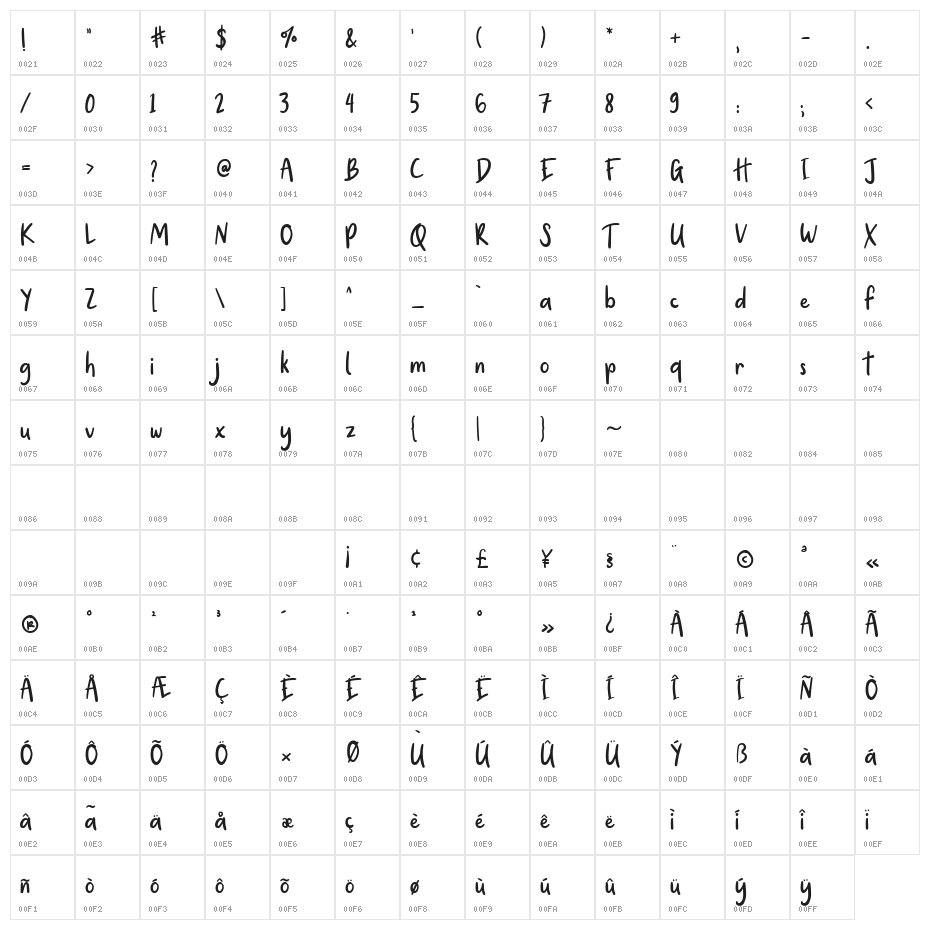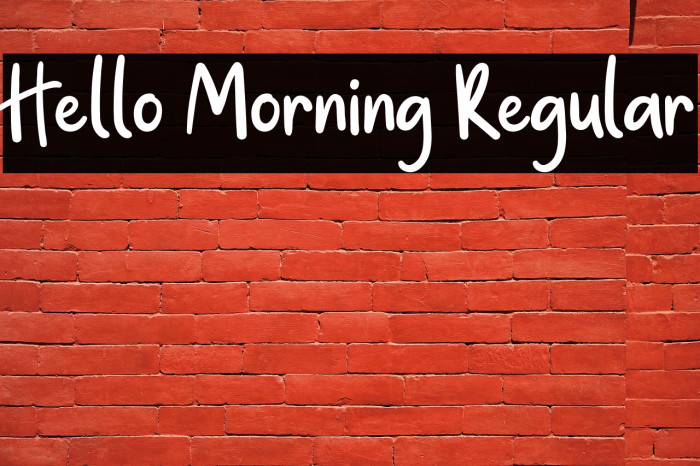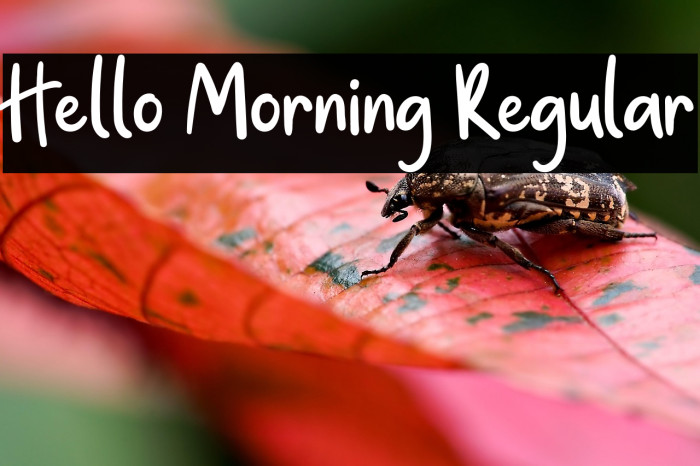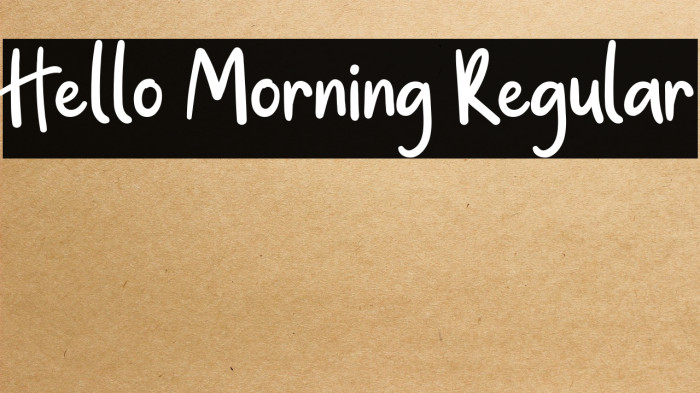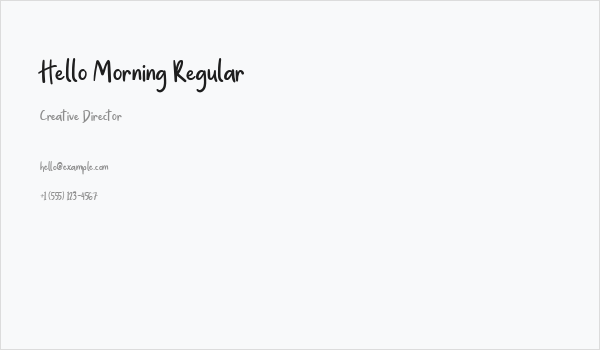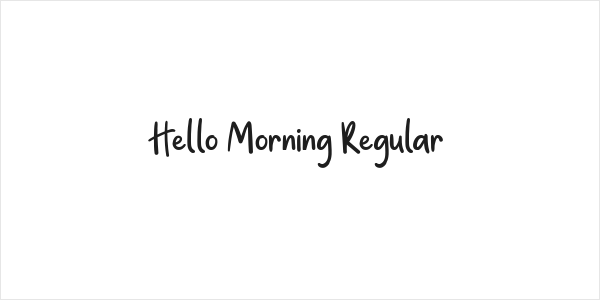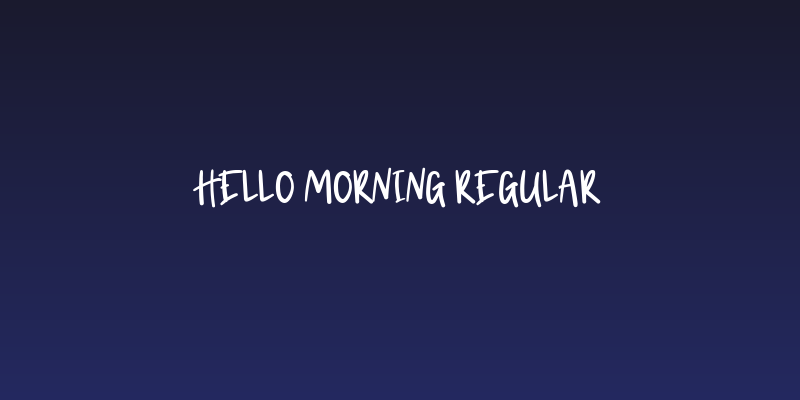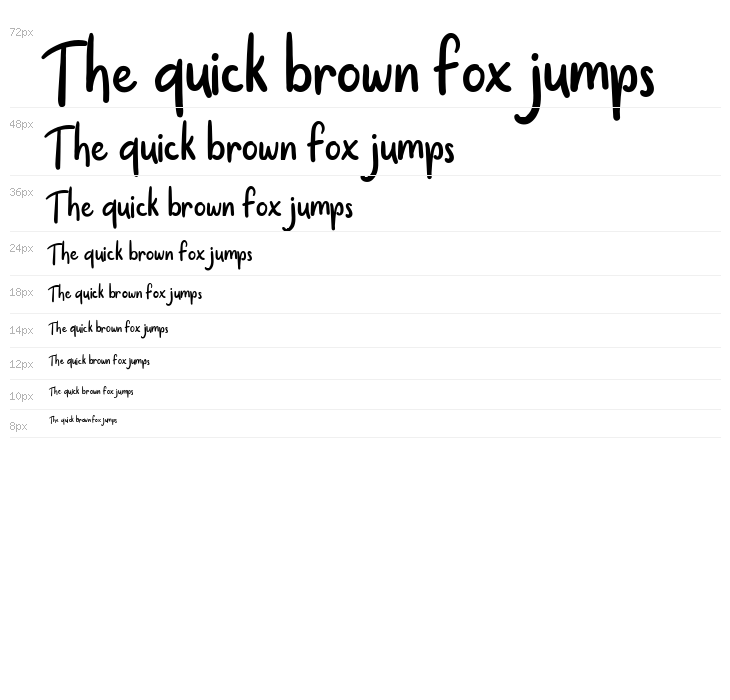
Hello Morning Regular Font
Hello Morning Regular Description
This font exudes a playful and casual vibe, characterized by its handwritten style. The letters are slightly slanted, giving a dynamic and informal appearance. The strokes are consistent in thickness, providing a uniform look across all characters. The uppercase letters are bold and prominent, while the lowercase letters maintain a friendly and approachable feel. The numerals and special characters are crafted to match the overall style, ensuring cohesion. This font is versatile, suitable for projects that require a personal touch or a relaxed atmosphere.
| Overall Style | Casual |
| Use Case | Headlines, Informal text, Personal projects |
| Proposed Projects | Ideal for greeting cards, personal blogs, children's books, and informal branding. |